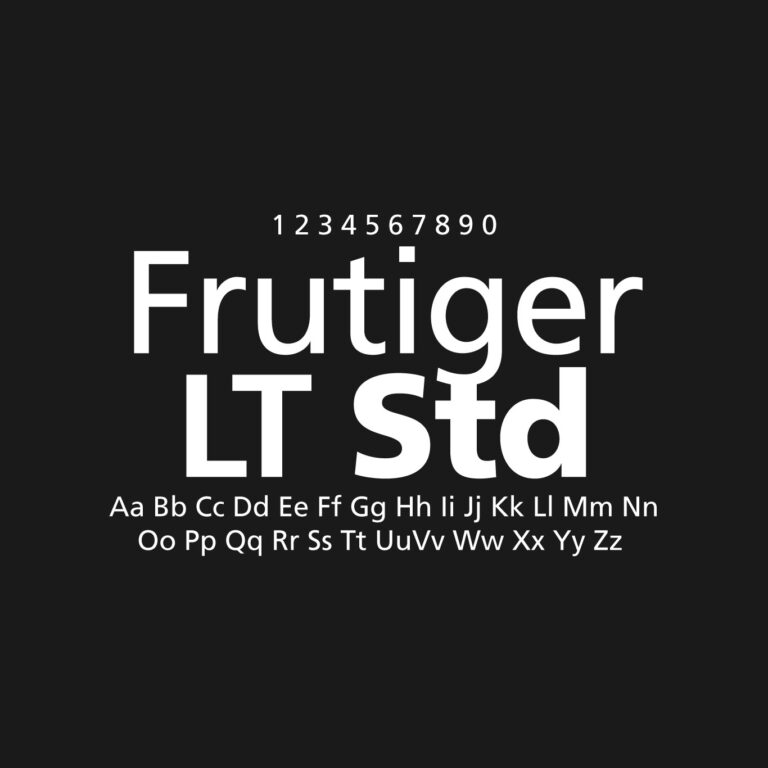
Frutiger LT Std is not just another neutral sans-serif. Its roots are connected to one of the most important design problems in public typography: helping people read quickly while moving through a complex space. The original Frutiger typeface grew out of the Roissy airport signage project for Charles de Gaulle Airport, where clarity, distance reading and instant recognition were more important than decorative style.
That background still defines the personality of Frutiger. The letters feel open, practical and human, with enough warmth to avoid the coldness of many neo-grotesque fonts. It has the discipline of a professional sans-serif, but the forms are more readable and approachable than a purely mechanical typeface.
This is why Frutiger works well in wayfinding systems, transportation graphics, hospital signage, corporate identity, public information design, editorial layouts, posters, interfaces and brand systems that need to feel clear without looking generic.
Font Name: Frutiger LT Std
Font Type: Sans Serif
Category: Humanist Sans Serif / Wayfinding Font
Visual Style: Clear, open, humanist, professional, legible
Best For: Signage, wayfinding, branding, editorial layouts, corporate identity, public information design, posters and interface typography
Designer: Adrian Frutiger
Foundry: Linotype
Design Notes
Frutiger is a useful reference for designers because it shows how readability can become a visual identity. The typeface was not built to impress at first glance; it was built to work under pressure. People needed to recognize words from a distance, from an angle, while walking, carrying luggage or scanning signs quickly.
That is why the letterforms are open and direct. The shapes are not overly geometric, and the spacing does not feel cramped. Letters such as a, e, c and s have a more open rhythm, which helps the font stay readable in short labels, signs, headings and interface elements.
Frutiger LT Std is especially strong when the design needs authority without stiffness. It can feel corporate, but not lifeless. It can feel functional, but not cold. This makes it different from Helvetica-style neutrality and closer to a humanist reading experience.
Frutiger vs Helvetica
Frutiger and Helvetica are both used in professional design, but they solve different problems. Helvetica feels tighter, more neutral and more graphic. Frutiger feels more open, more directional and more readable in real-world environments.
If Helvetica is often used for identity and visual control, Frutiger is closer to navigation and clarity. It is the kind of sans-serif that works well when typography has to guide people, organize information or remain readable across signs, documents, screens and public spaces.